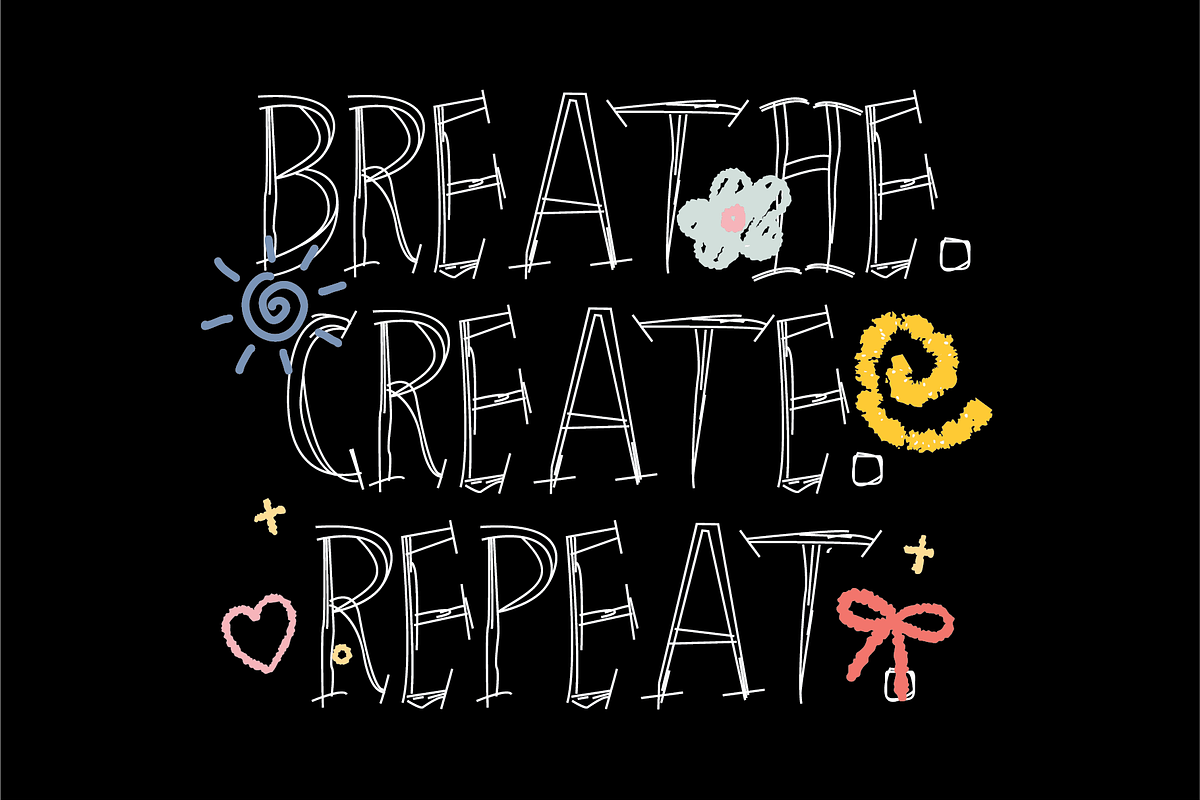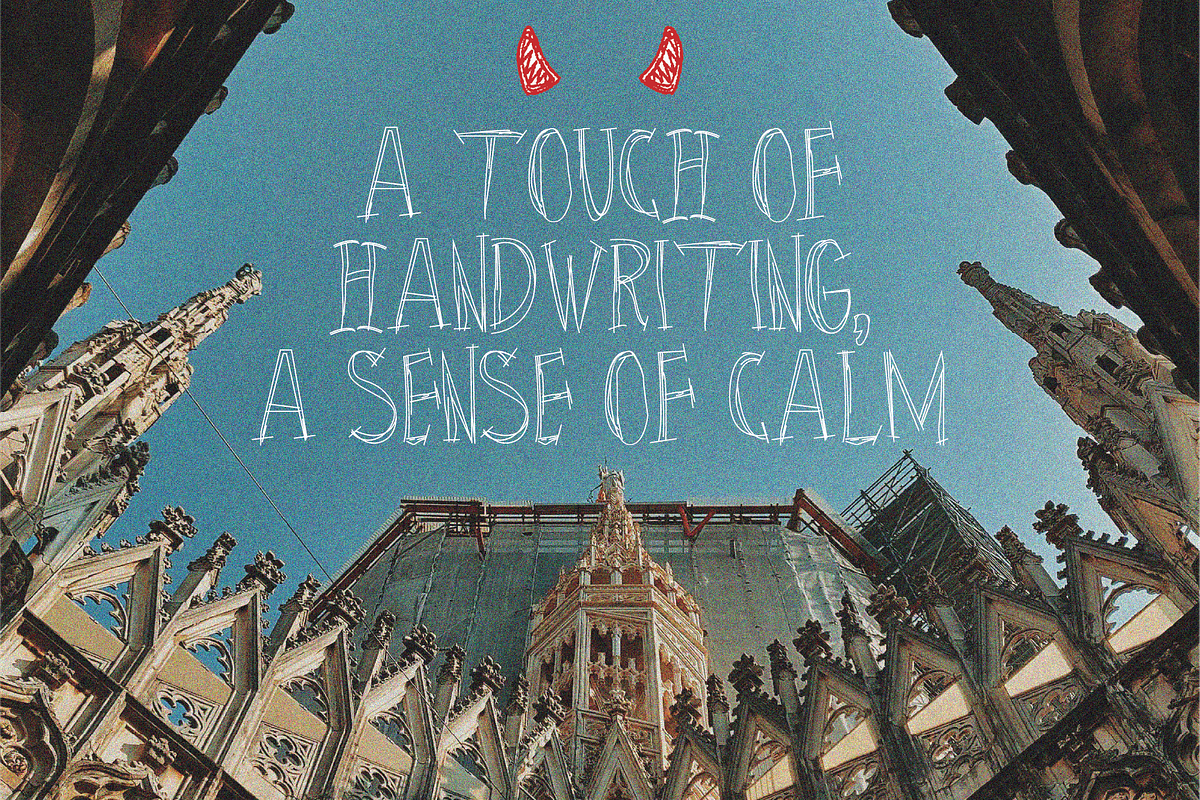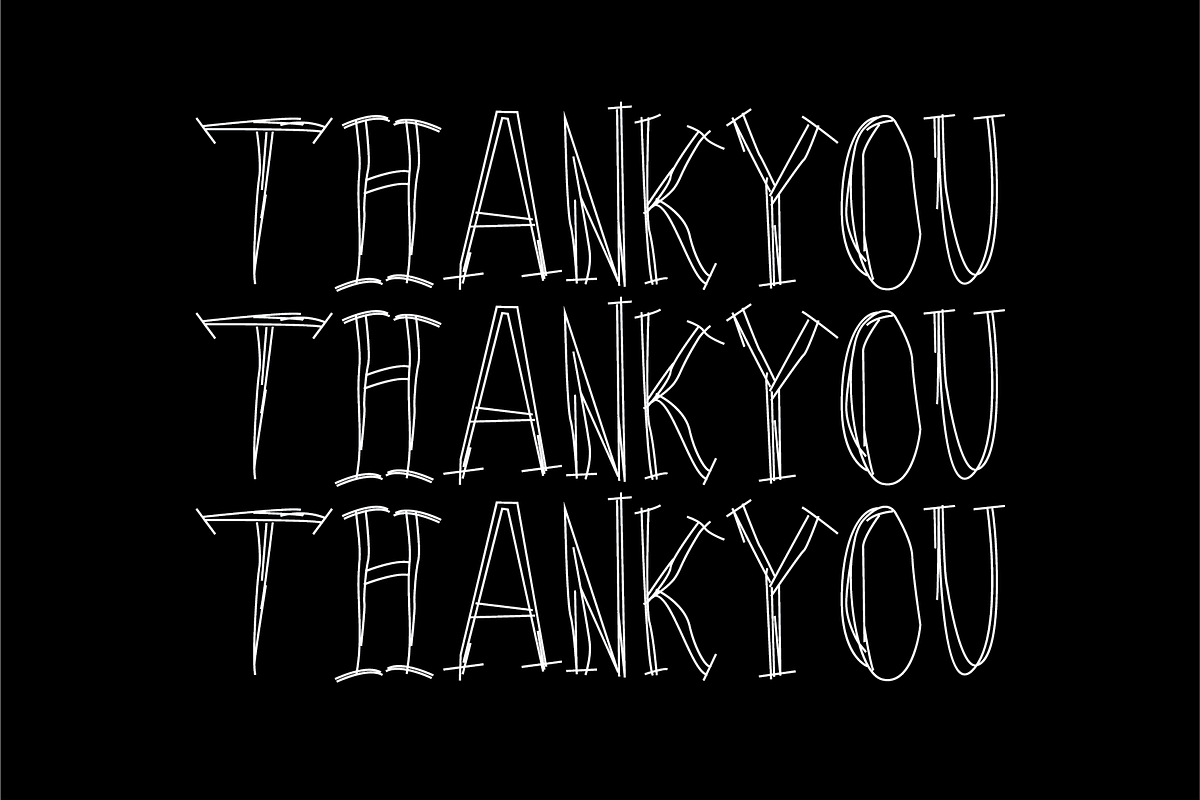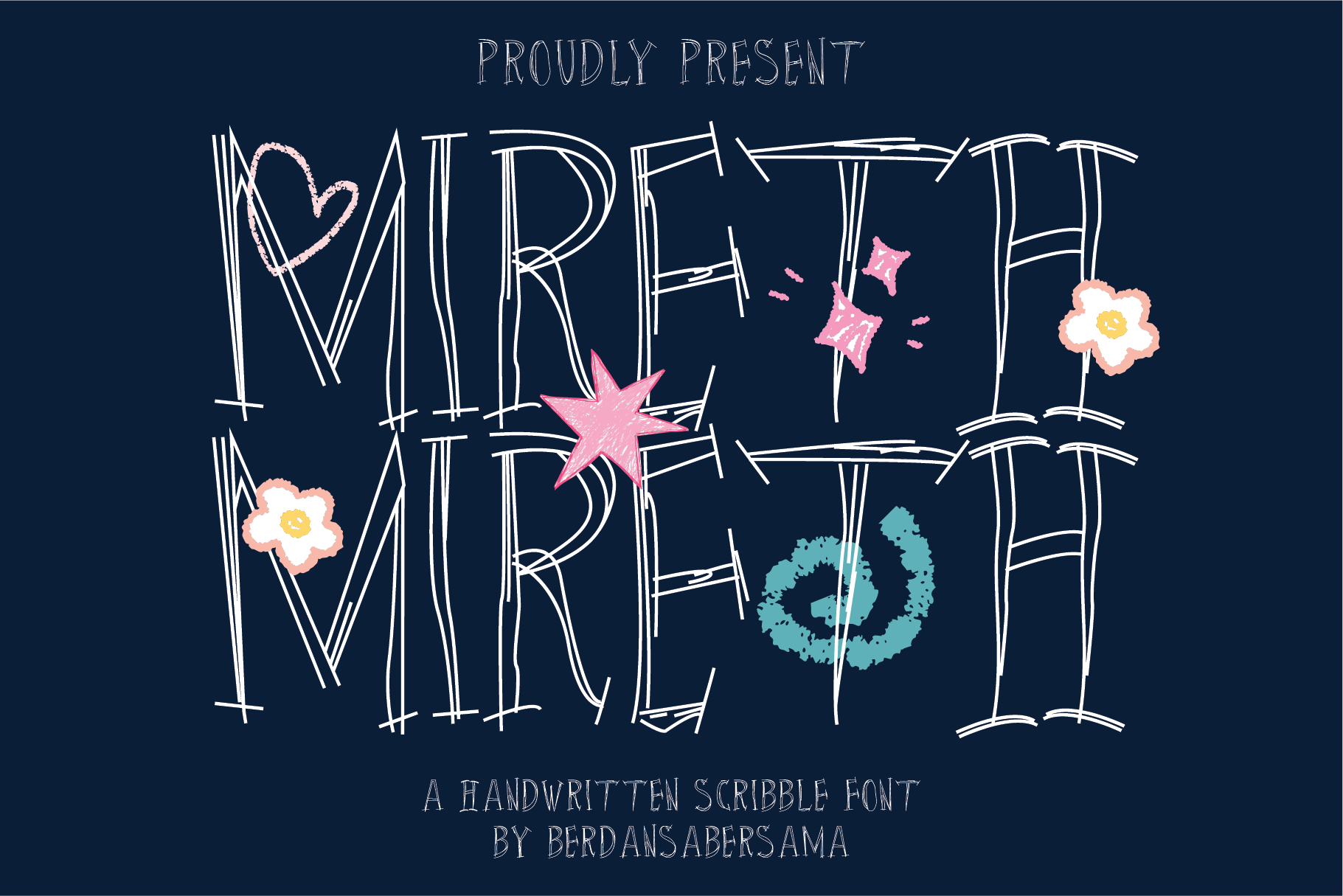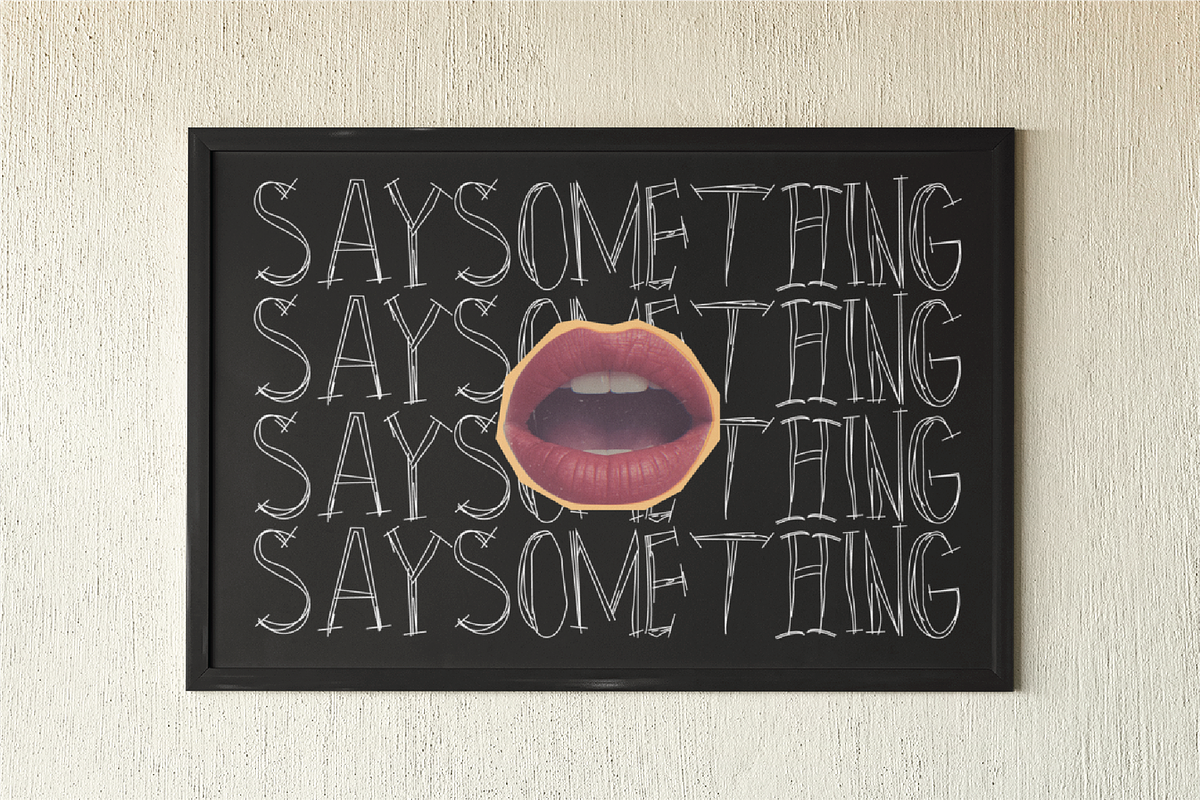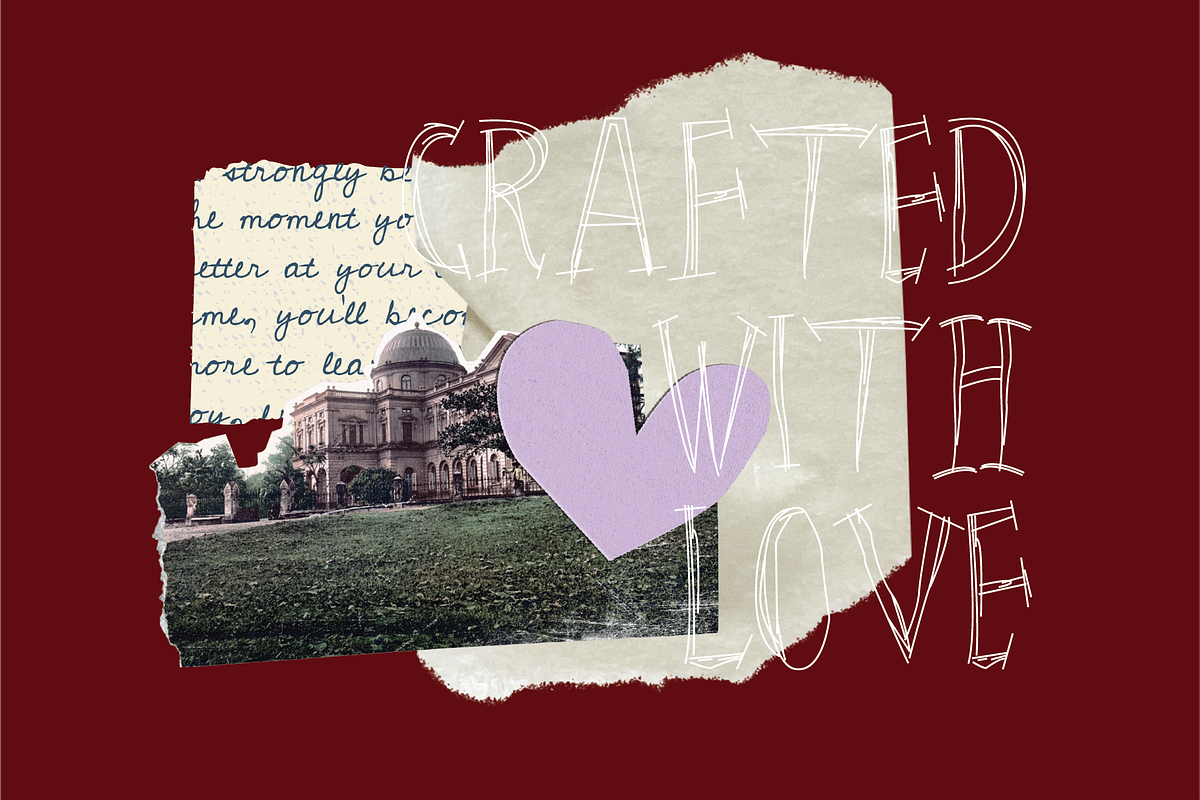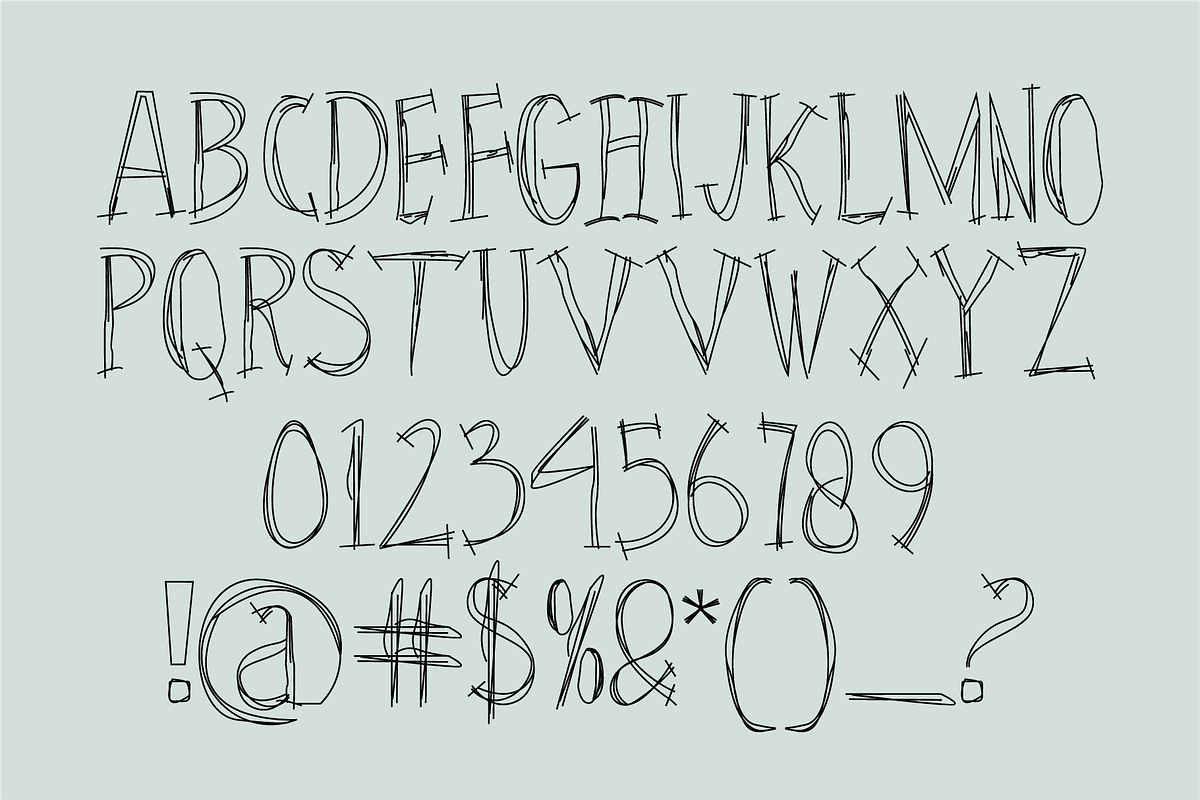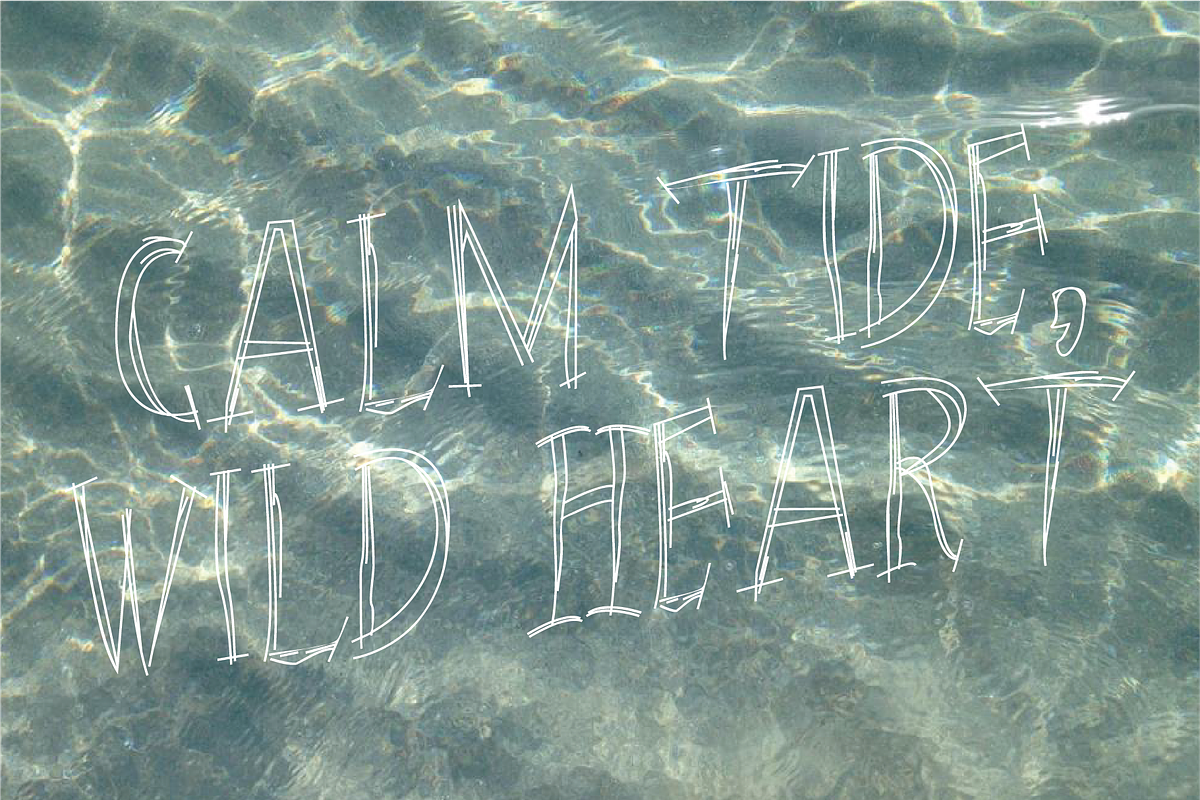
Mireth a Scribble Font
Mireth is a quirky and artistic display font that feels like it was drawn straight from a sketchbook. Its uneven lines, playful decorations, and spontaneous energy make every letter feel alive and full of personality.